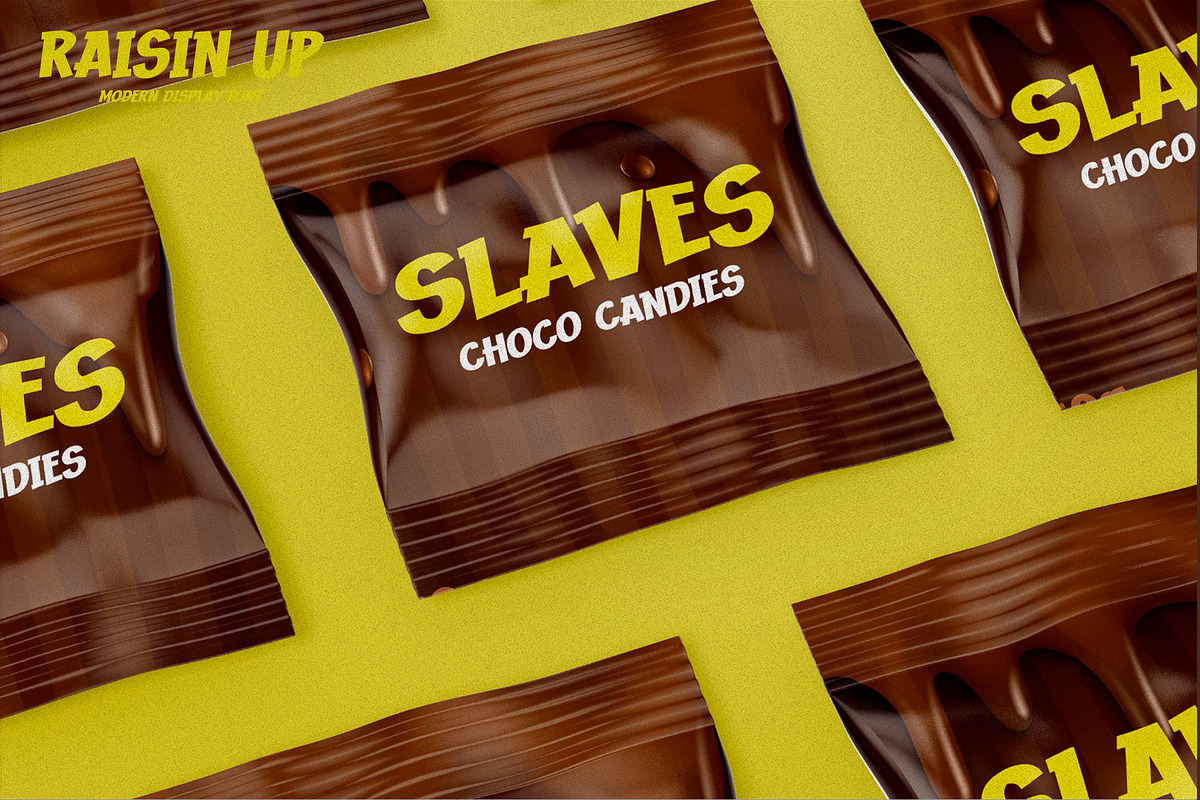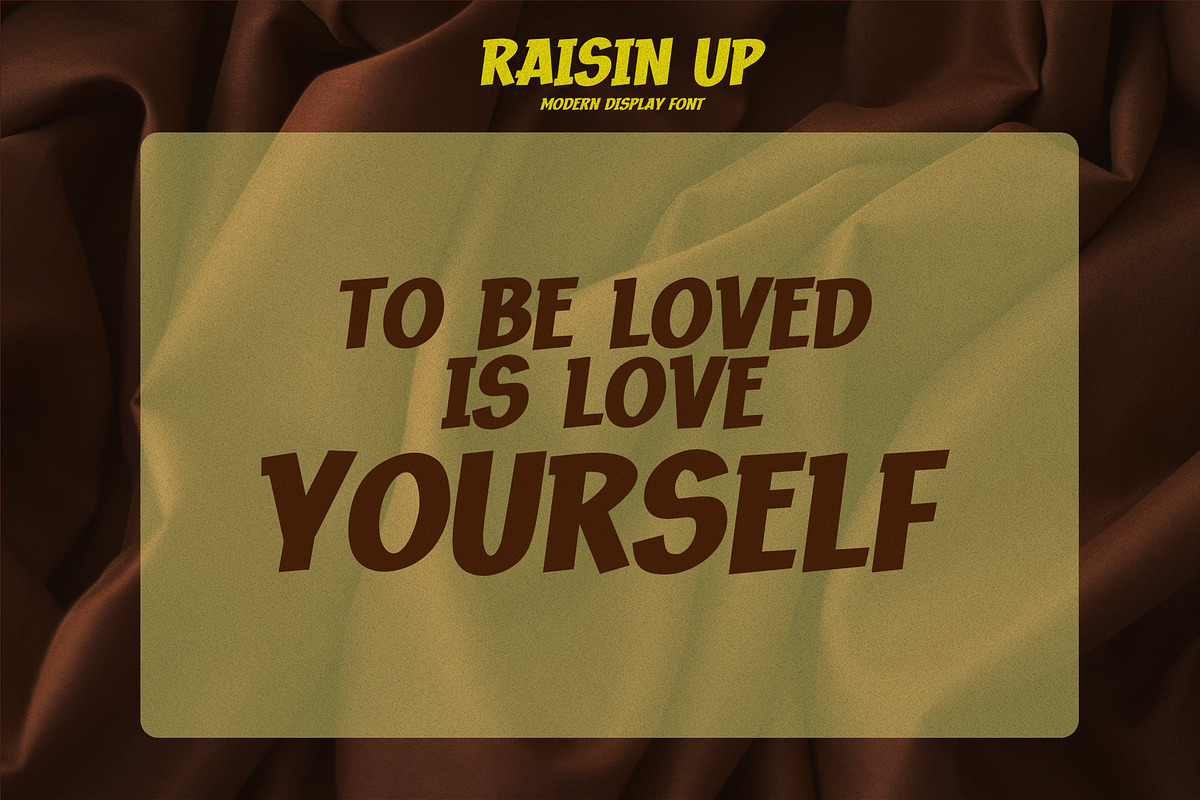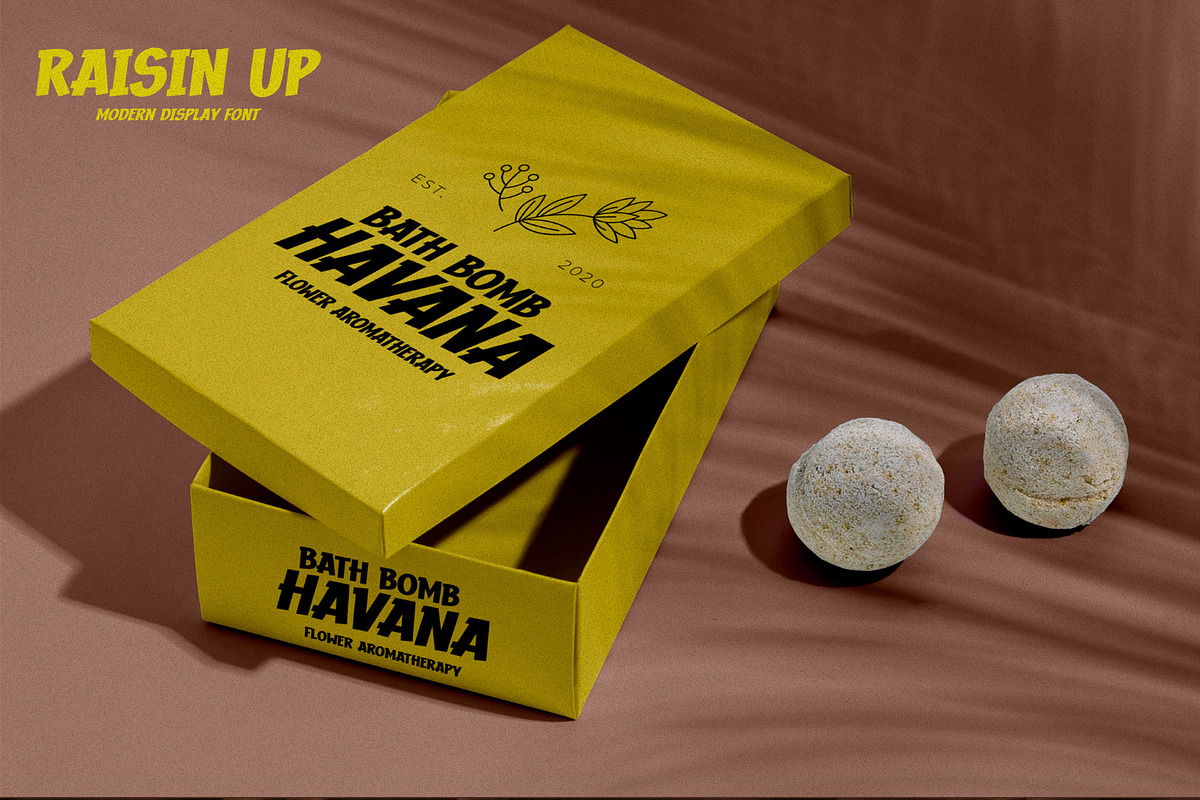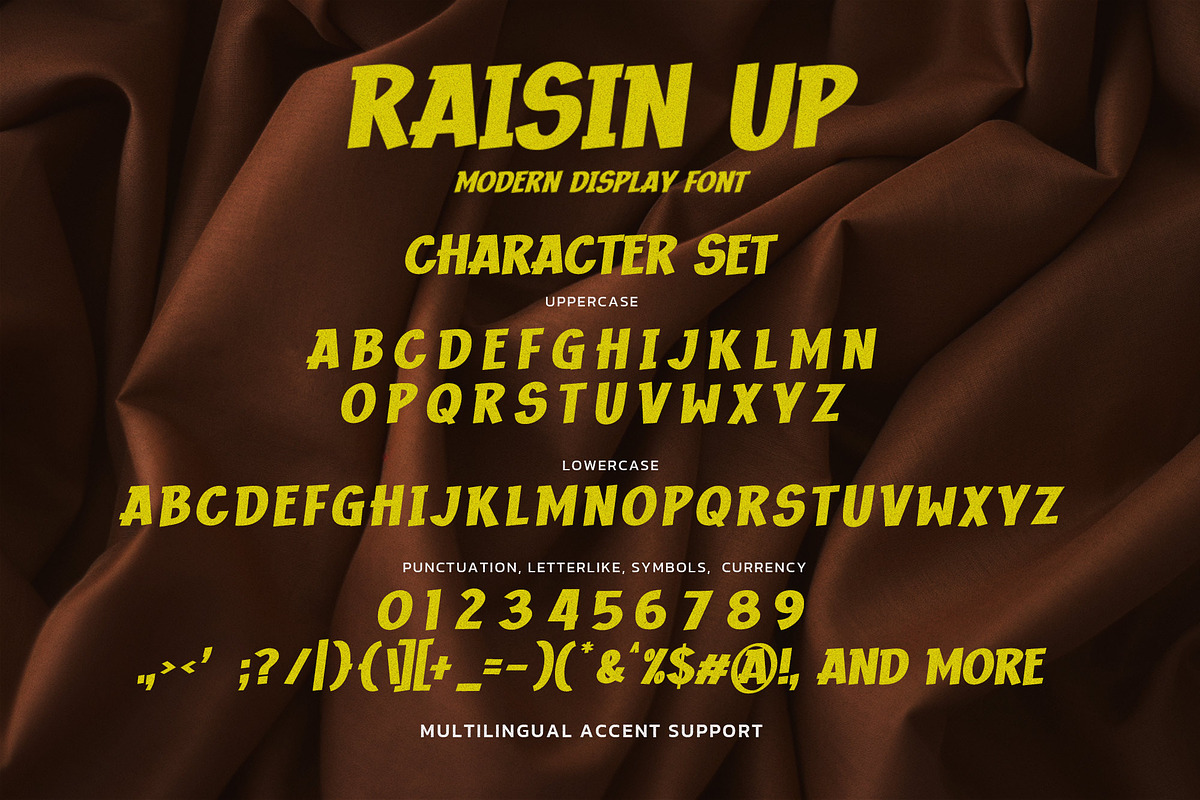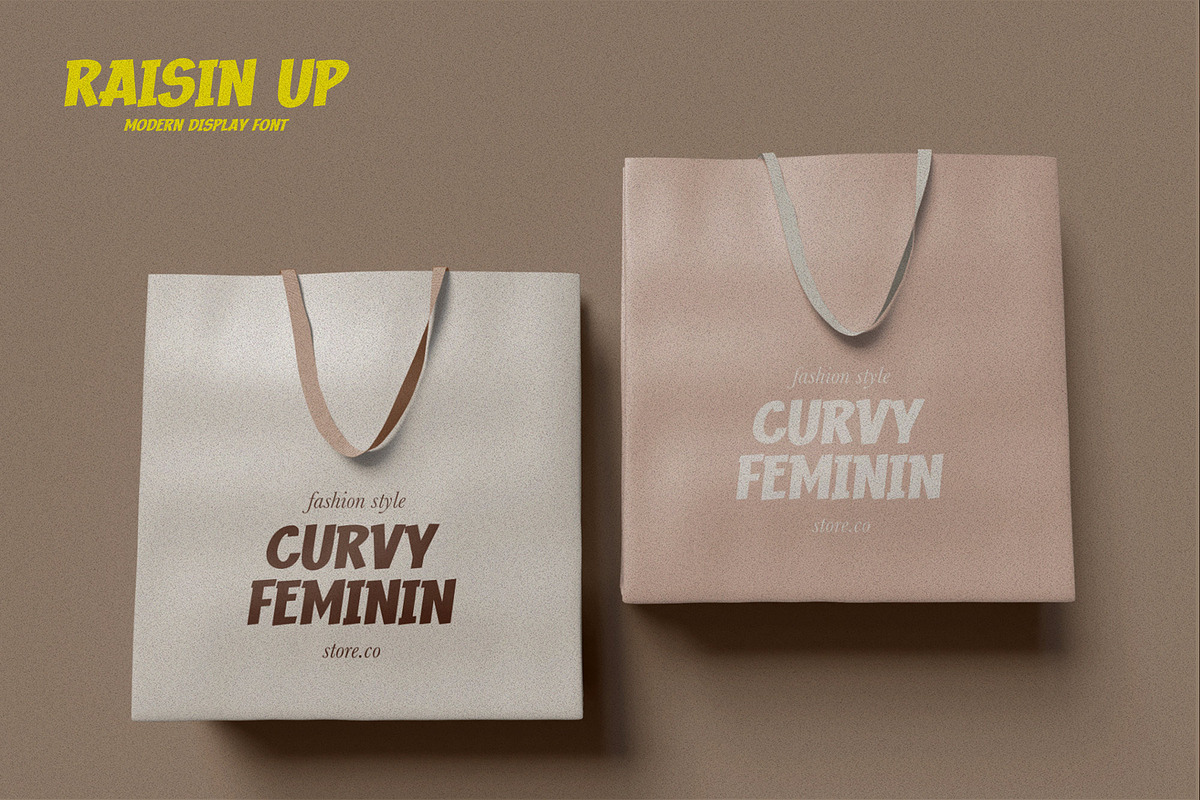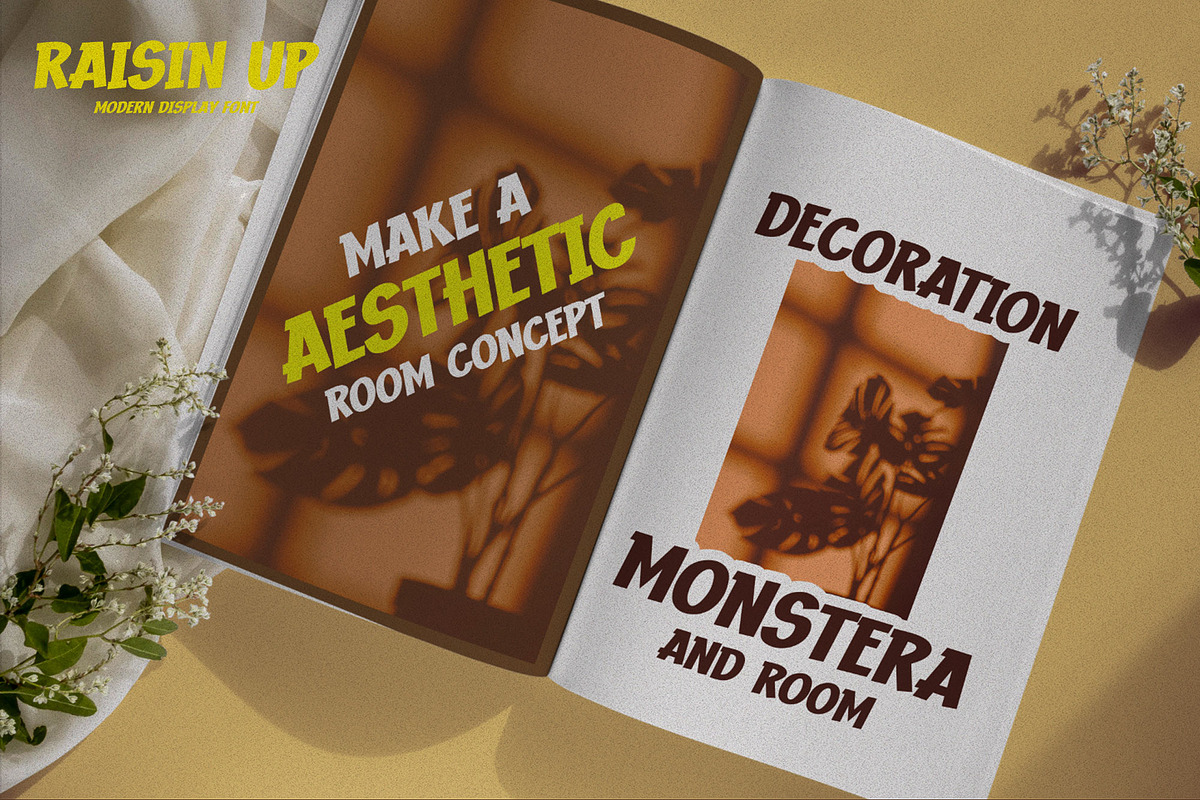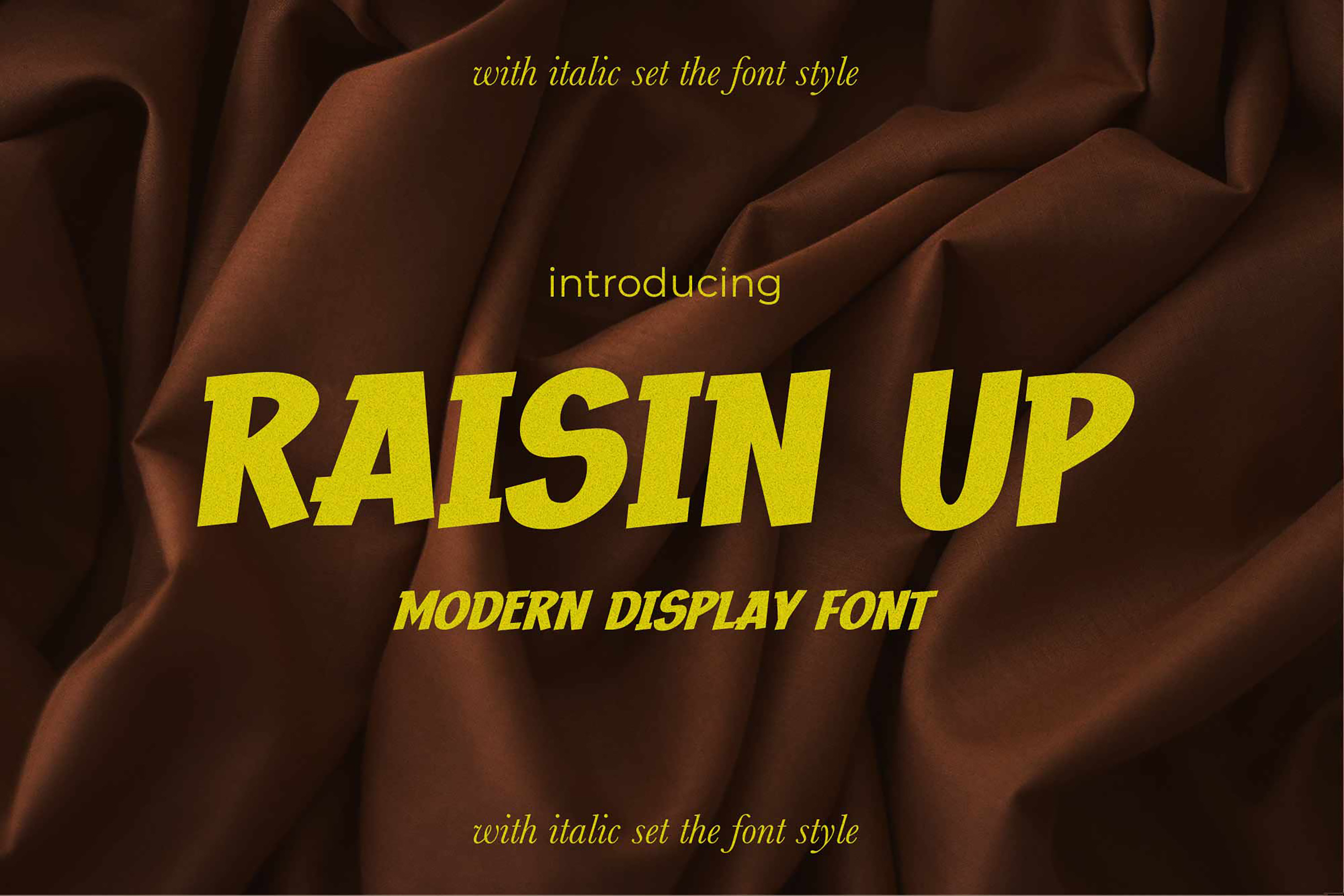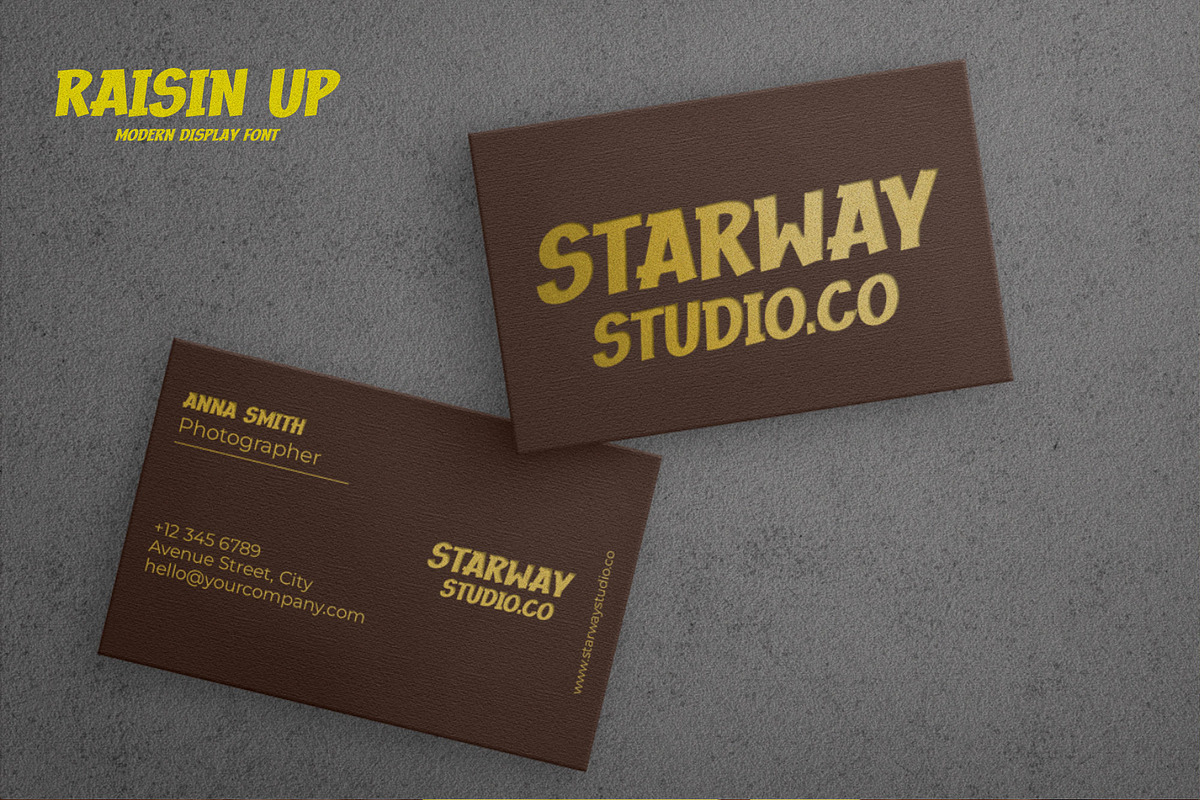
RAISIN UP - Modern Display Font
Hello Everyone, introduce our new product RAISIN UP is Modern Display Font with a natural feel. This handmade font will make your design has a beautiful natural touch for each details. It is perfect for any design project as Invitation,logo, book cover, craft or any design purposes.
RAISIN UP is Inspired by Food Logo style and combination with Unique Craft style. that will fulfill your design needs for quotes,sporty theme, logotype, wordmark, etc. This has many opentype features and support multi language. This font is PUA encoded which means you can access all of the magical glyphs with ease! RAISIN UP with 2 stlye RAISIN UP Regular and RAISIN UP Italic Set.